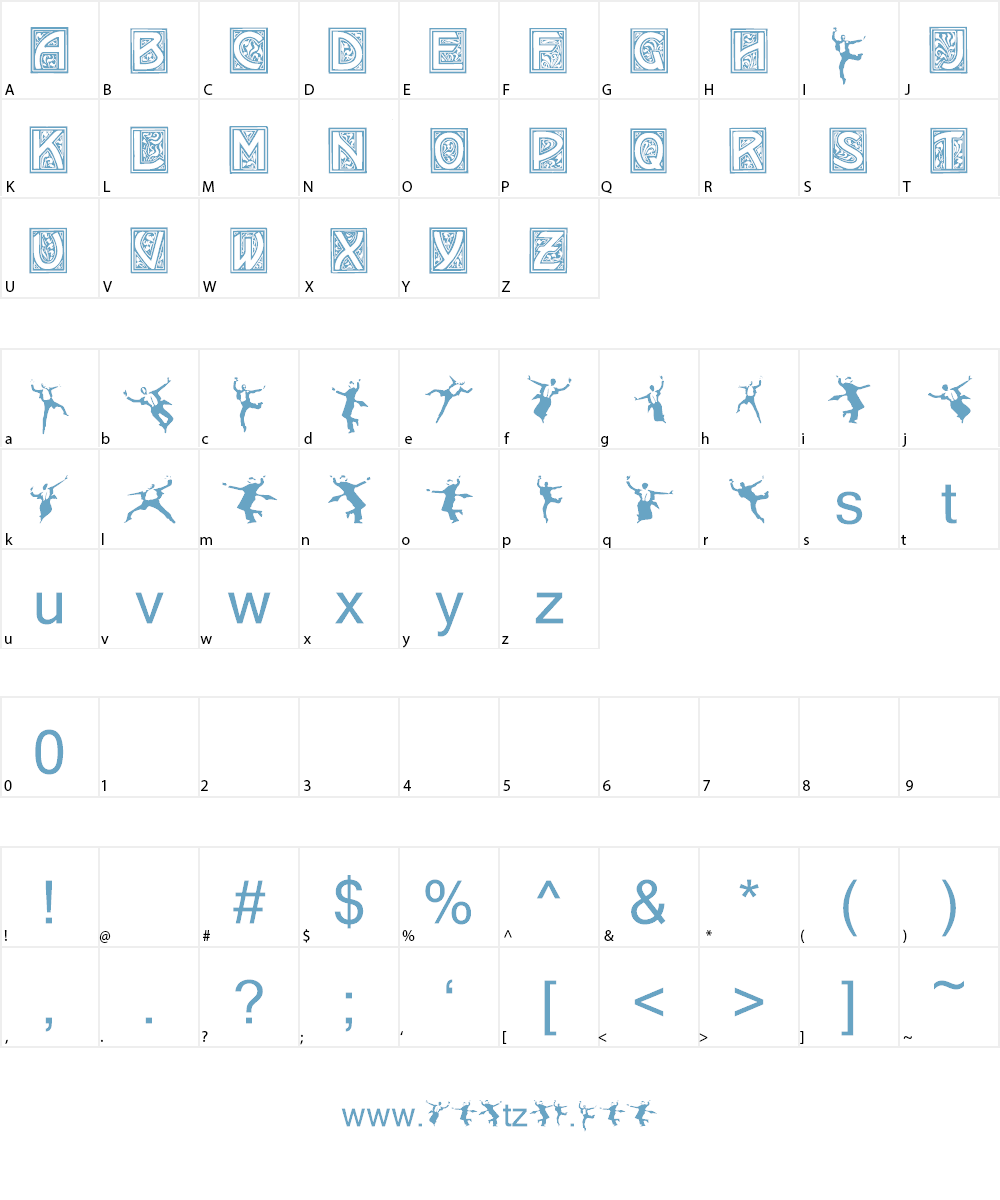
Tango, a font of decorative Art Nouveau drops caps, is based on the Sezessions-Initialen of W. Gronau, Berlin. The dancers, whom you will find easily enough, are based on a nice group of fellows I met in a bar in Amsterdam.